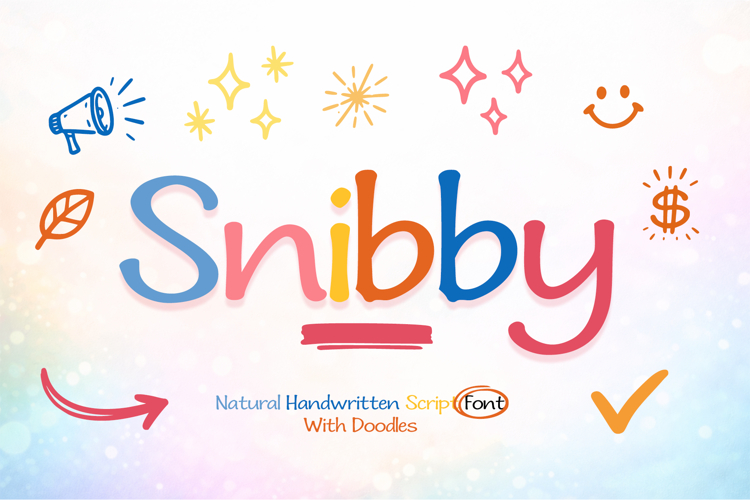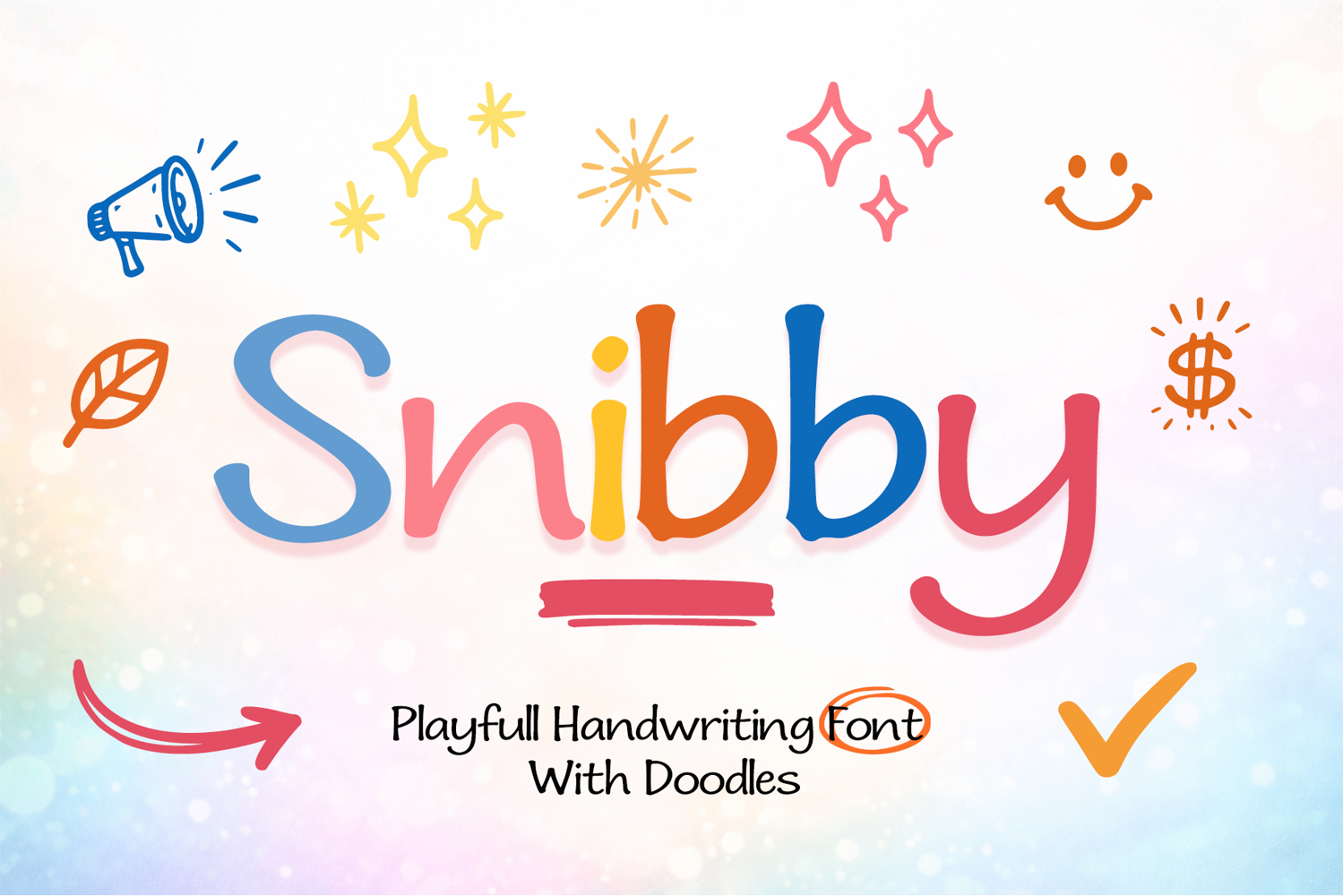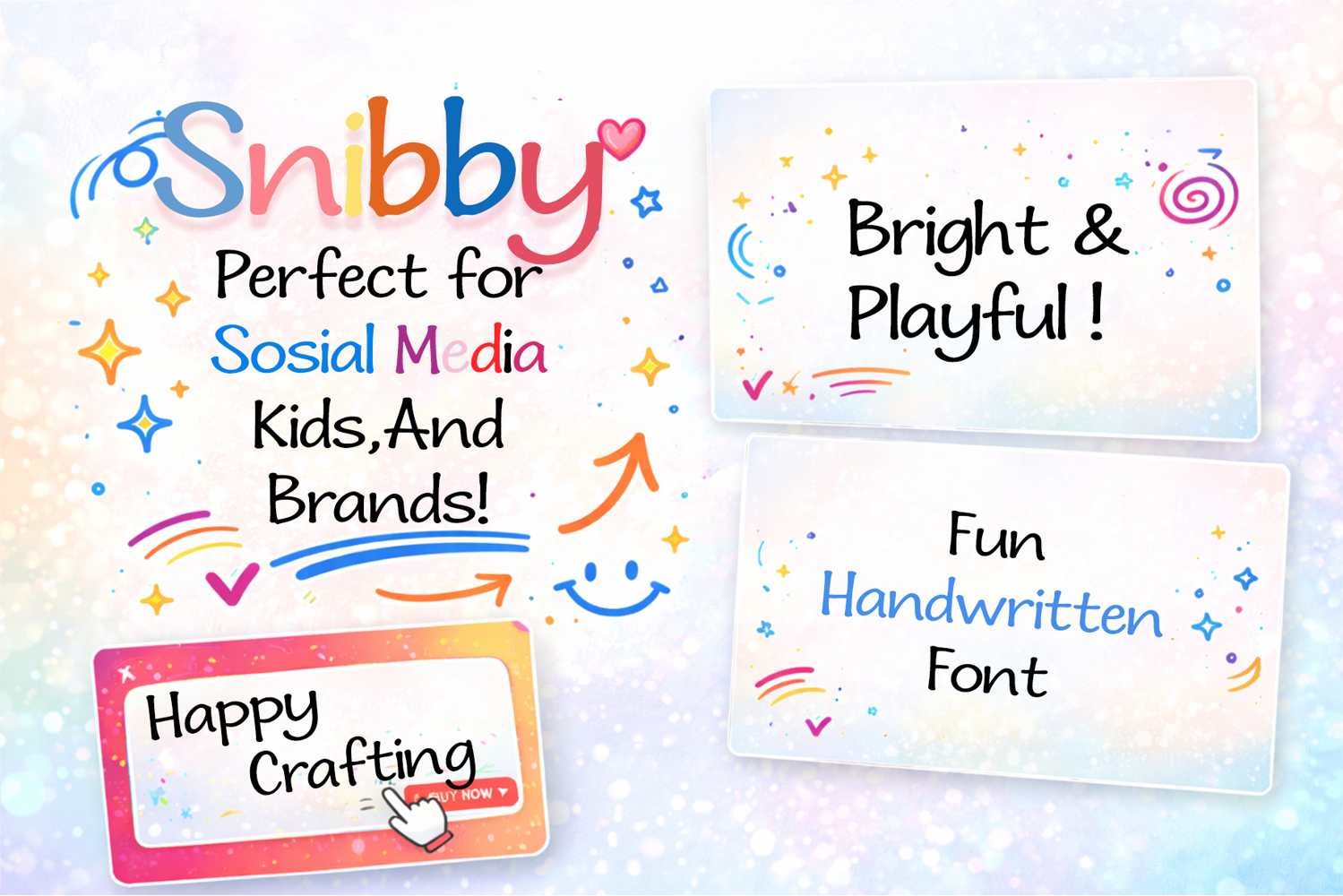
Snibby is a playful handwriting font with a cheerful and friendly personality. Designed with rounded, smooth, and expressive letterforms, it brings a fun and creative feel to any design. Enhanced with doodle-style elements, this font is perfect for kids designs, social media content, posters, branding, packaging, stickers, and decorative headlines, helping visuals look more lively, warm, and eye-catching.